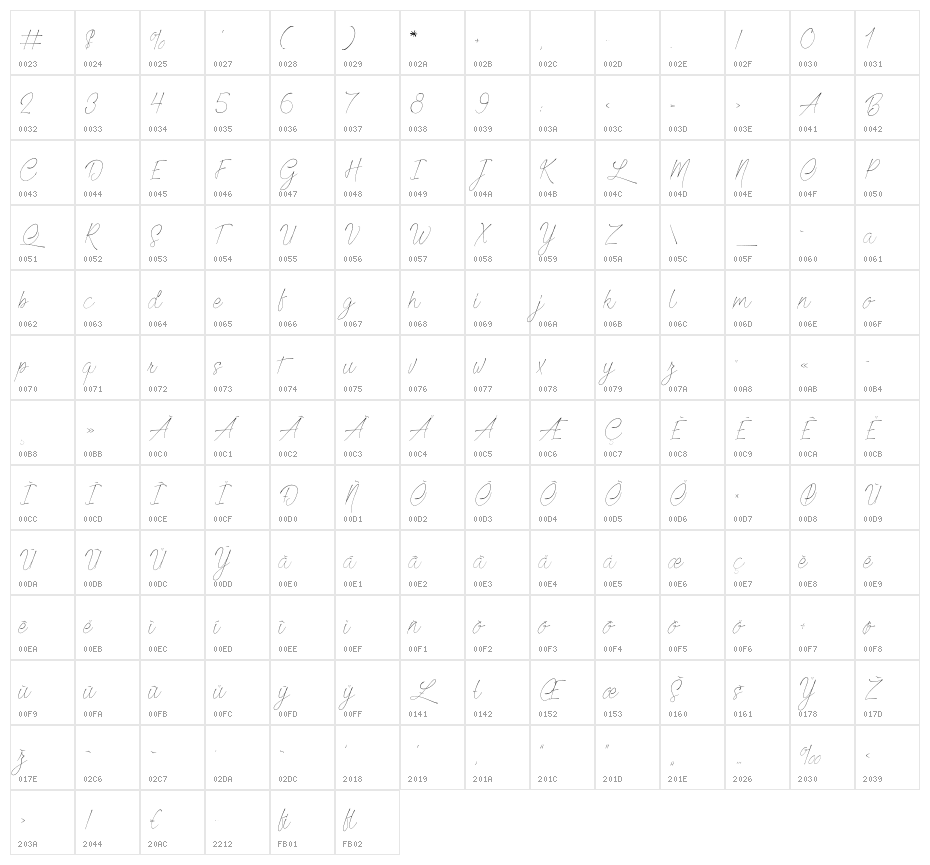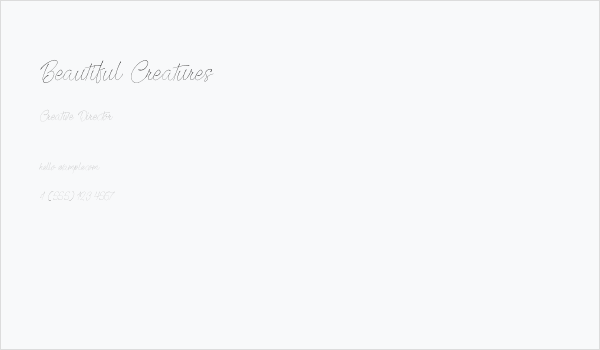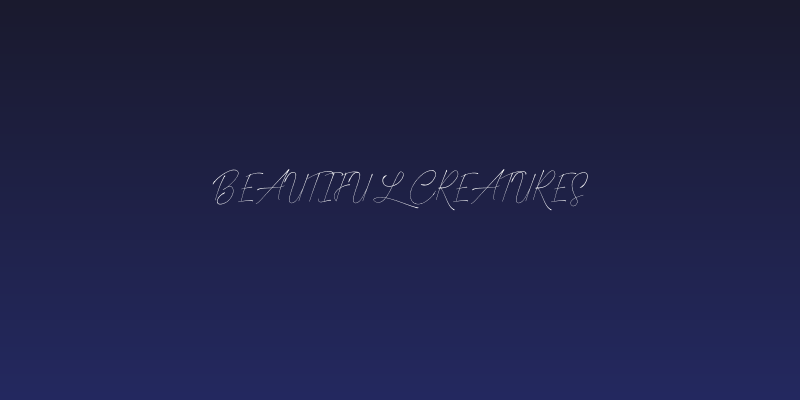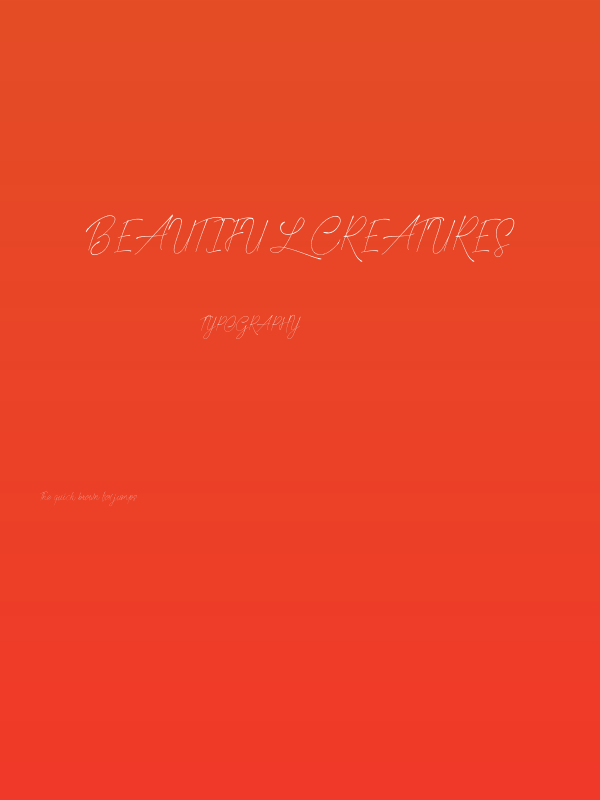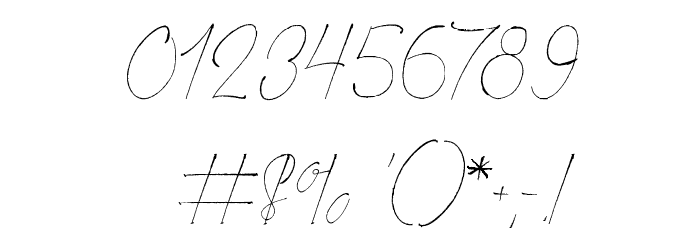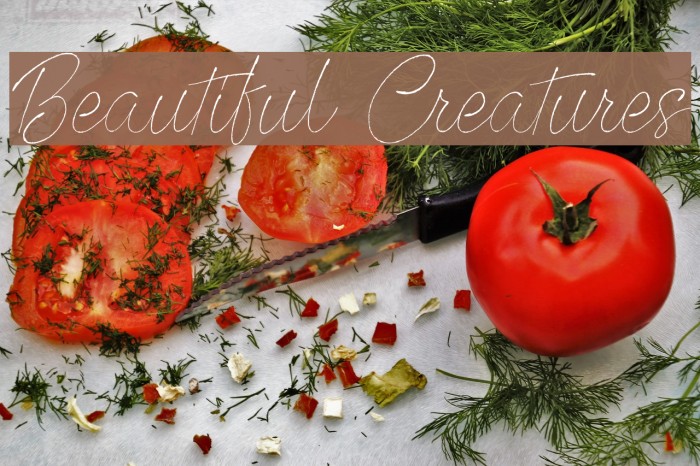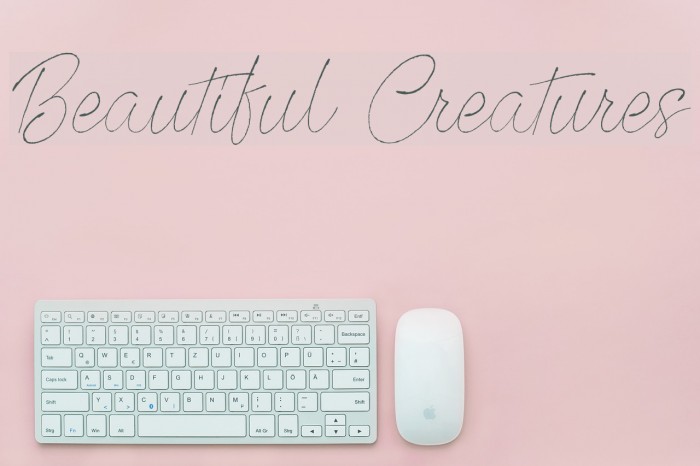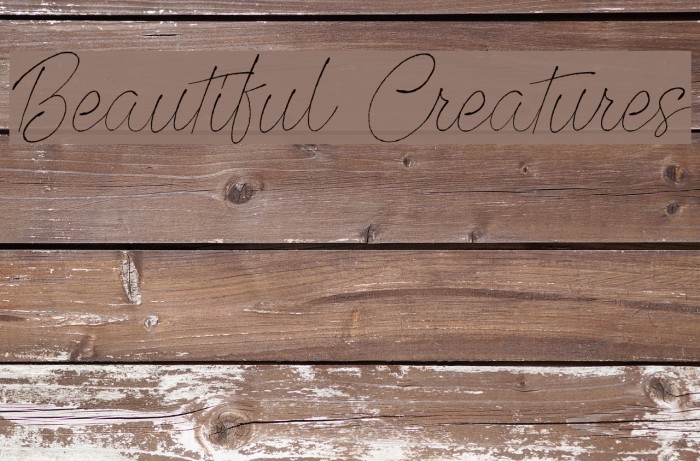
Beautiful Creatures Font
Beautiful Creatures Description
This font exudes an elegant and flowing script style, characterized by its delicate and graceful strokes. The letters are connected in a cursive manner, giving it a handwritten feel that is both sophisticated and approachable. The uppercase letters are slightly more elaborate, with gentle curves and loops that add a touch of flair. The lowercase letters maintain a consistent flow, enhancing readability while preserving the artistic essence. Numbers and special characters are crafted with the same attention to detail, ensuring a cohesive look across all elements. This font is perfect for projects that require a personal touch, such as invitations, greeting cards, or branding materials.
| Use Case | Headlines, Invitations, Personal Branding |
| Proposed Projects | Ideal for wedding invitations, personal branding, greeting cards, and elegant stationery. |